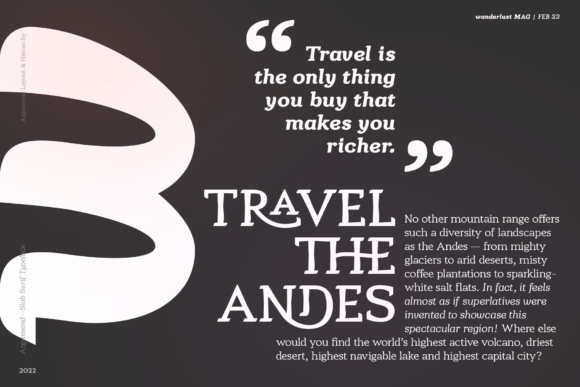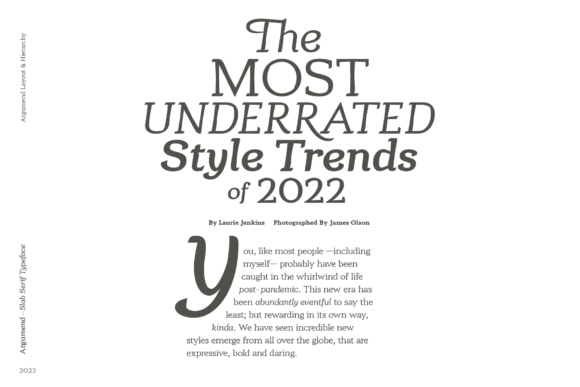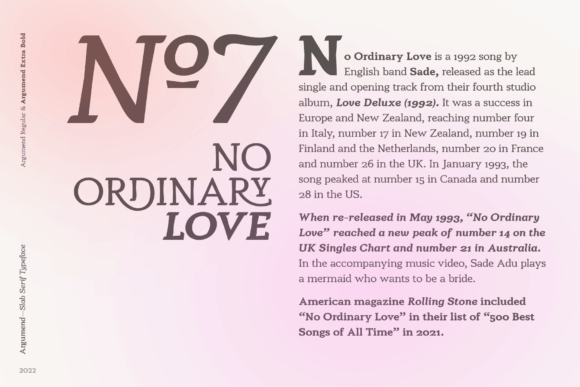
Introduction to Argumend Font
Argumend is a versatile slab serif typeface with a wide range of Opentype features.
Create strong and eye-catching headlines with its upper case ligatures or make use of its many weights and true italics to create mindful body copy; either way, Argumend is rich with typographic options to help create attention-worthy text This font is PUA encoded, which means you can access all of the glyphs and swashes with ease.